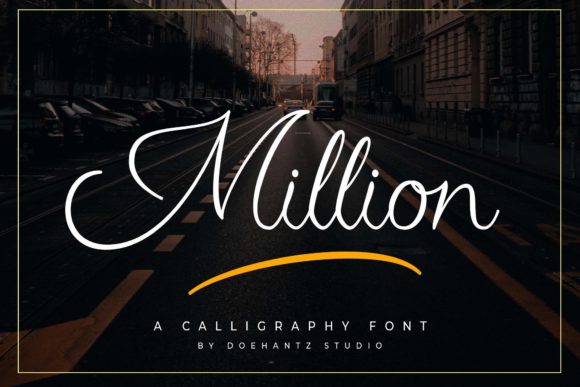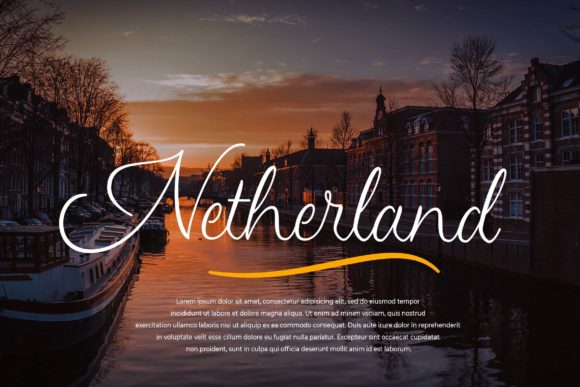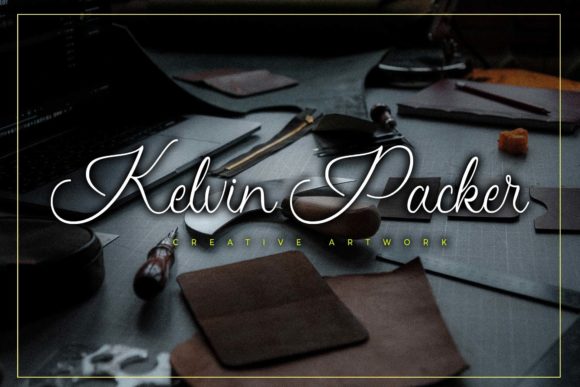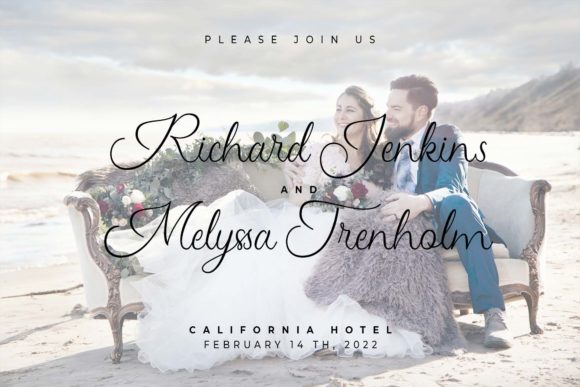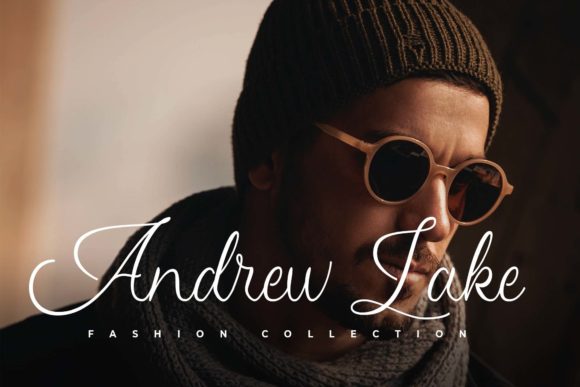
Million Font
About Million Font
Million is an exquisite calligraphy font, masterfully designed to become a true favorite. It maintains its classy calligraphic influences while feeling contemporary and fresh. Fall in love with it and bring your projects to the highest levels!